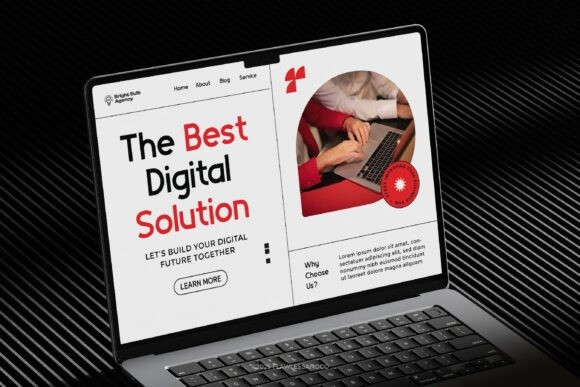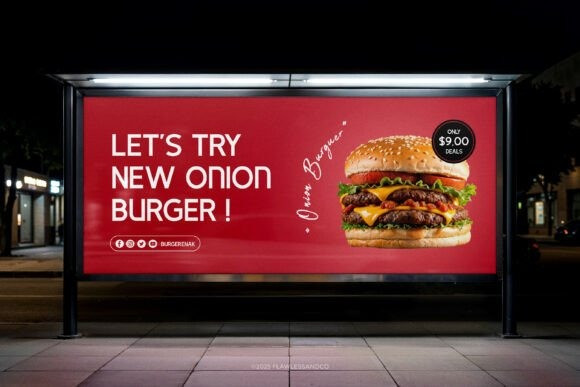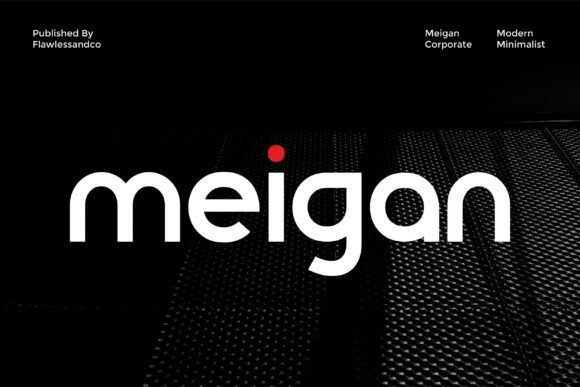
Meigan Font
Meigan Font is a minimalist and professional modern sans serif font designed for corporate, business, and contemporary branding needs. Featuring sleek geometric shapes, balanced proportions, and strong readability, this typeface delivers a modern and trustworthy visual appearance across both digital and print media. Its minimalist and versatile design makes Meigan perfect for creating polished and professional visual identities.